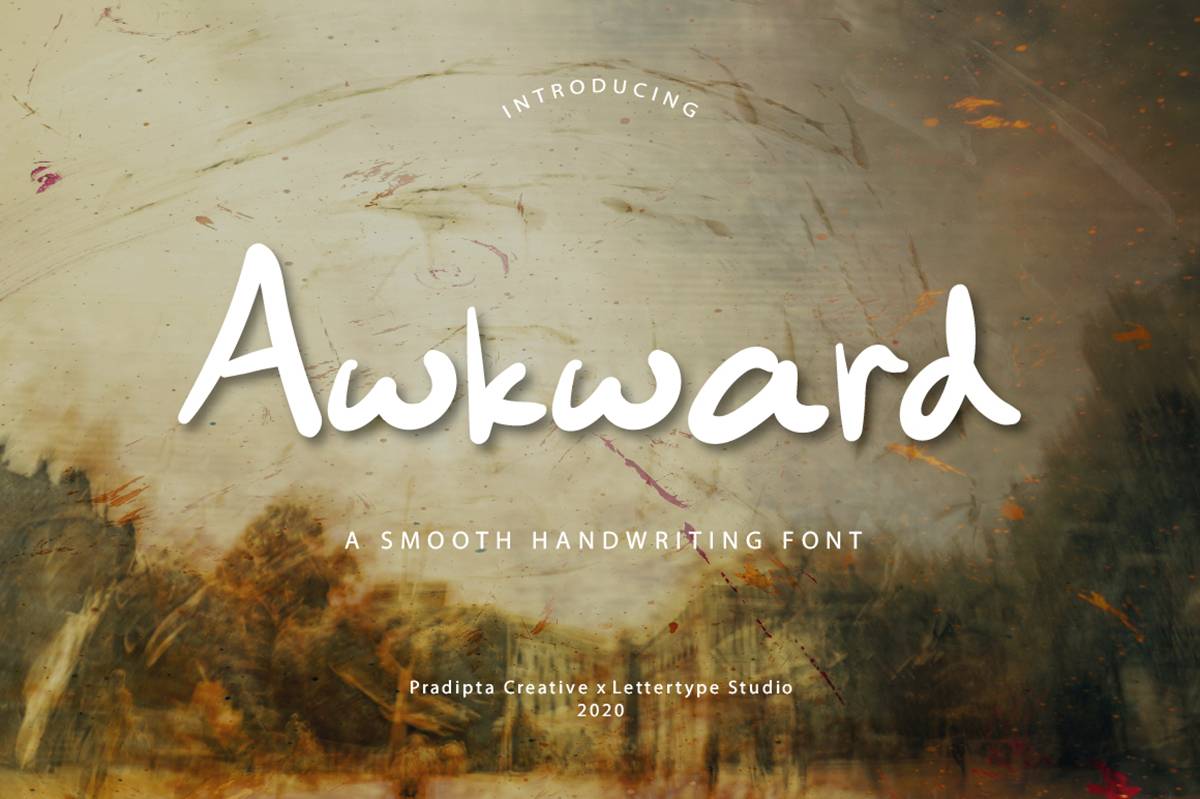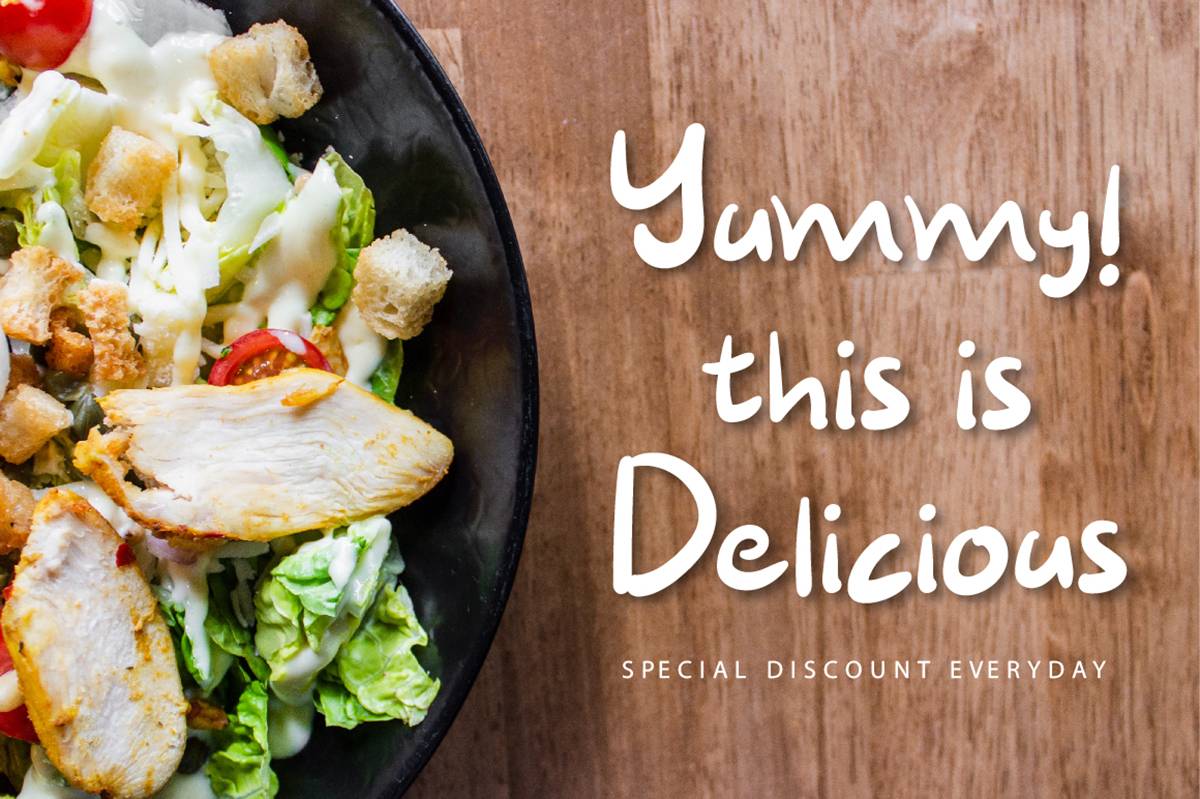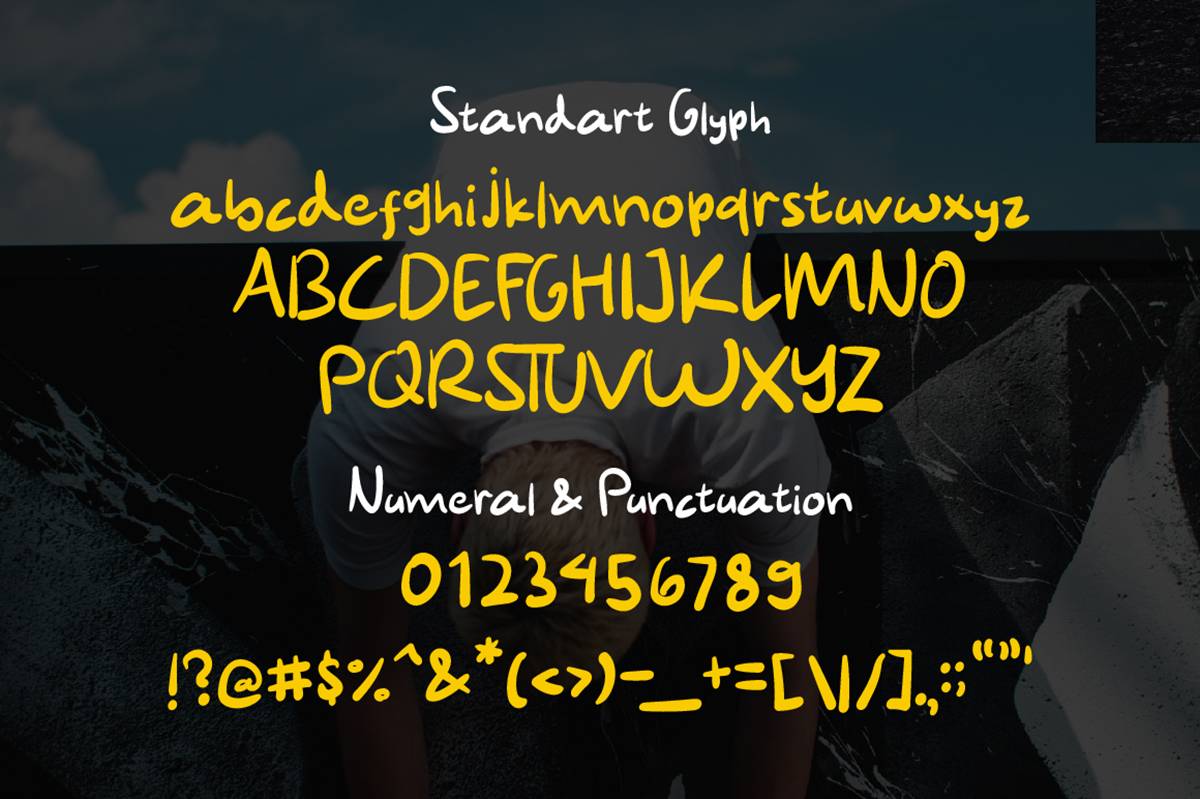
Awkward Font is a playful and informal handwritten sans serif that features uneven, casual strokes and a slightly quirky character. Its medium weight and friendly, imperfect shapes give it a warm, approachable vibe, making it ideal for creative projects, fun branding, and relaxed editorial uses. This font works best where a personal, hand-crafted feel is desired to add a touch of charm and personality.
Awkward Font
About Awkward Font
| Font family | Awkward Font |
| Designer | Diki Pradipta Tri Atmojo |